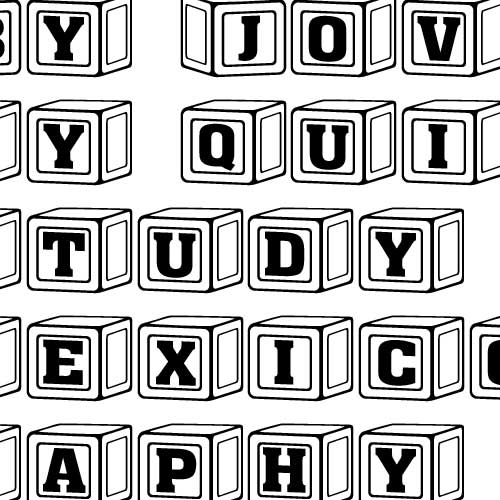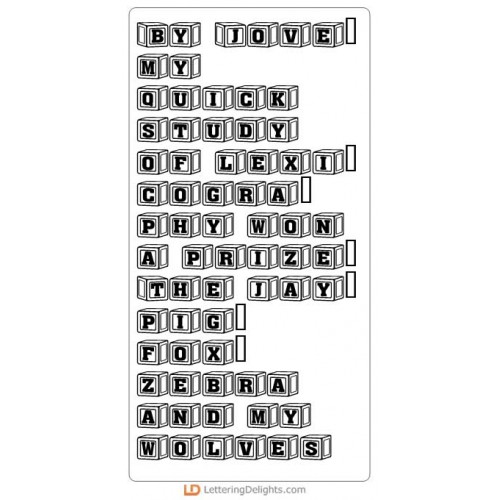
Scrap Blocks - Font
Create a project that stacks up to success with this cute font. Each letter is prominently displayed on the face of a three dimensional play time block. Use capital and lowercase letters to get blocks that face different directions.